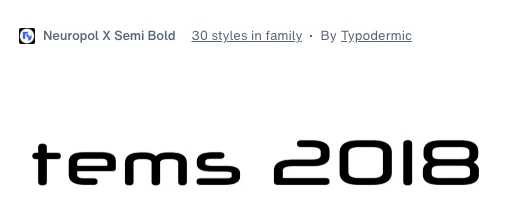
Font finder gave bad results
I wanted to find a font that I only have found as an image.
It is characterized by (if possible) one "limb" in the character is given half length,
and that the round elements are made more "square-ish".
To make it simpler I supplied two characters only "s" and "2".
Adobe returned a great number of fonts, none with "limbs" like my sample.
Can you recognize the font?
@Ake2359861495w9 I looked in Adobe Fonts identify by image, nothing. So, I tried Whatthefont, and shows up as:
Neuropol X ...
So, once I got the name, I tried to enter this enter Adobe Fonts, and it's there: